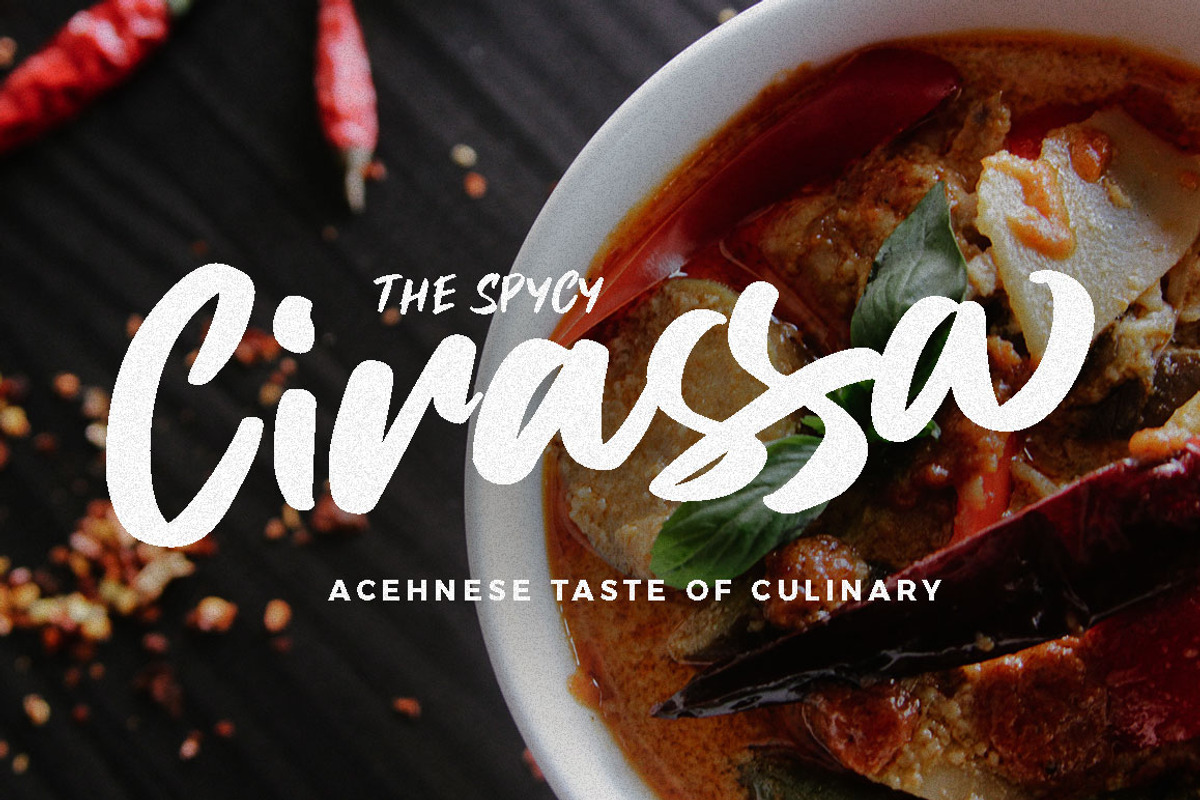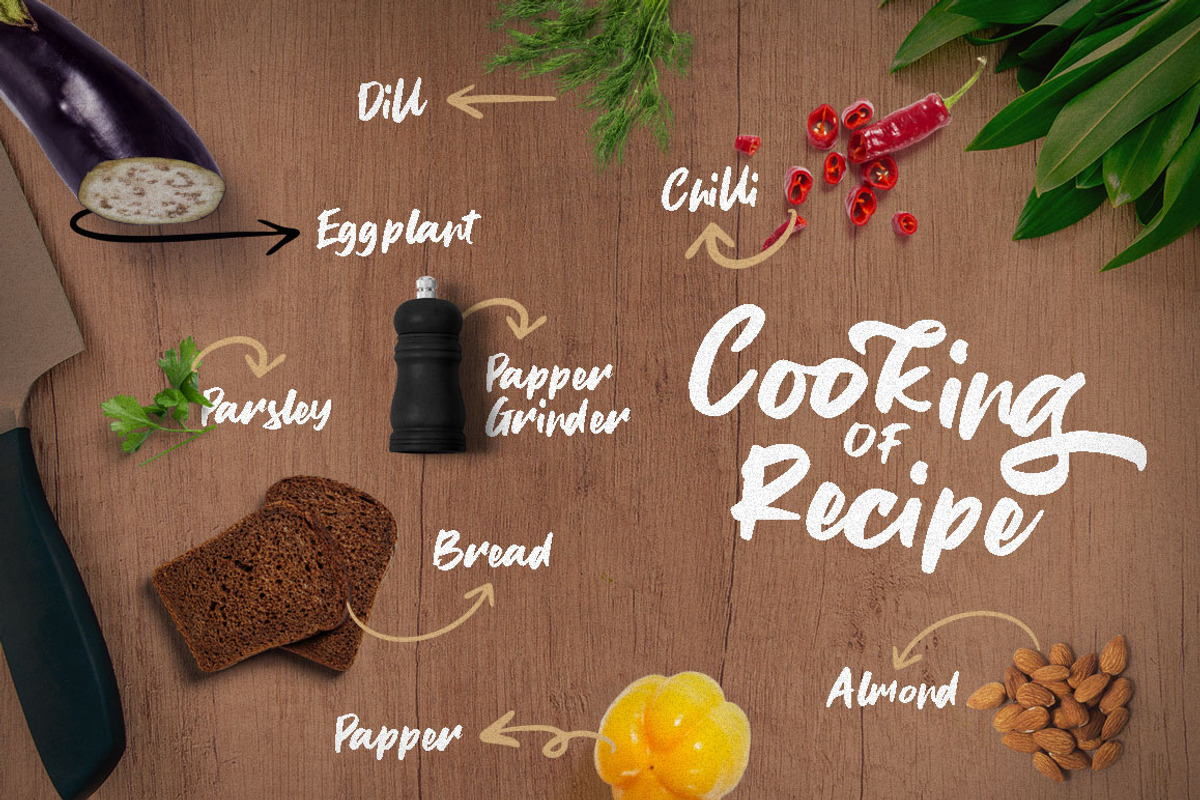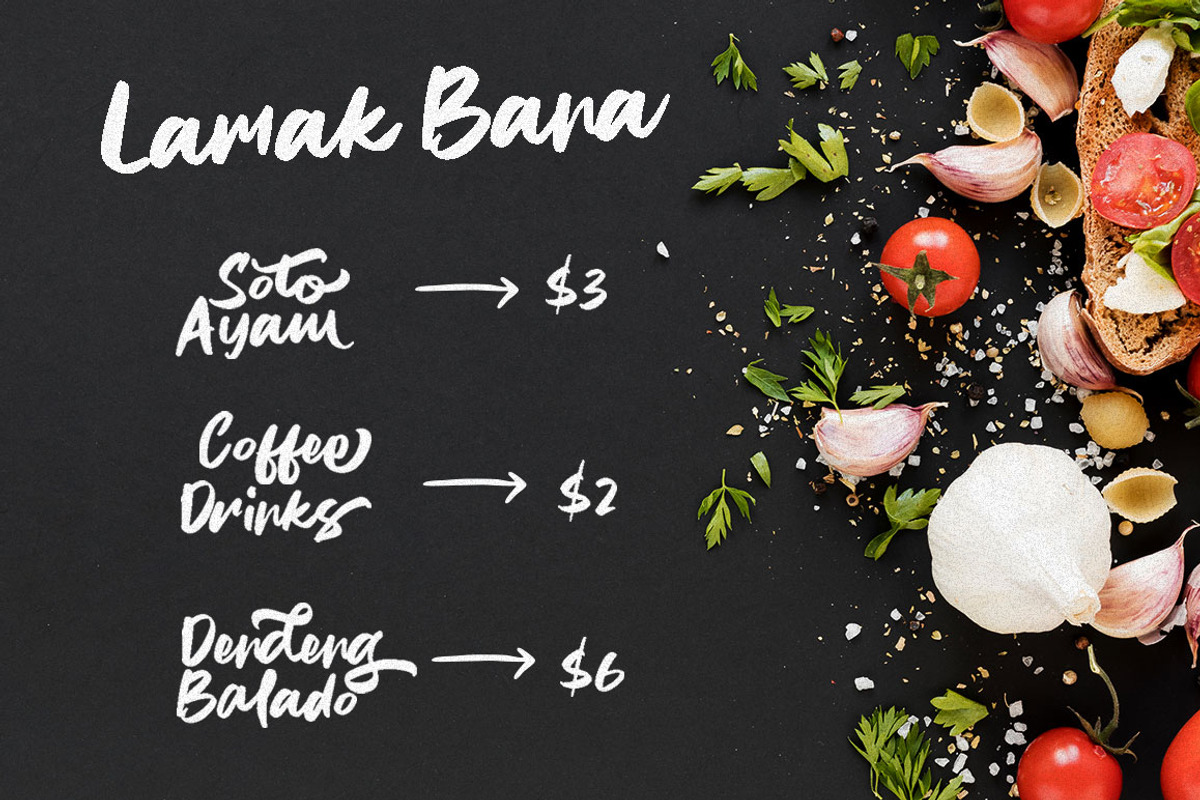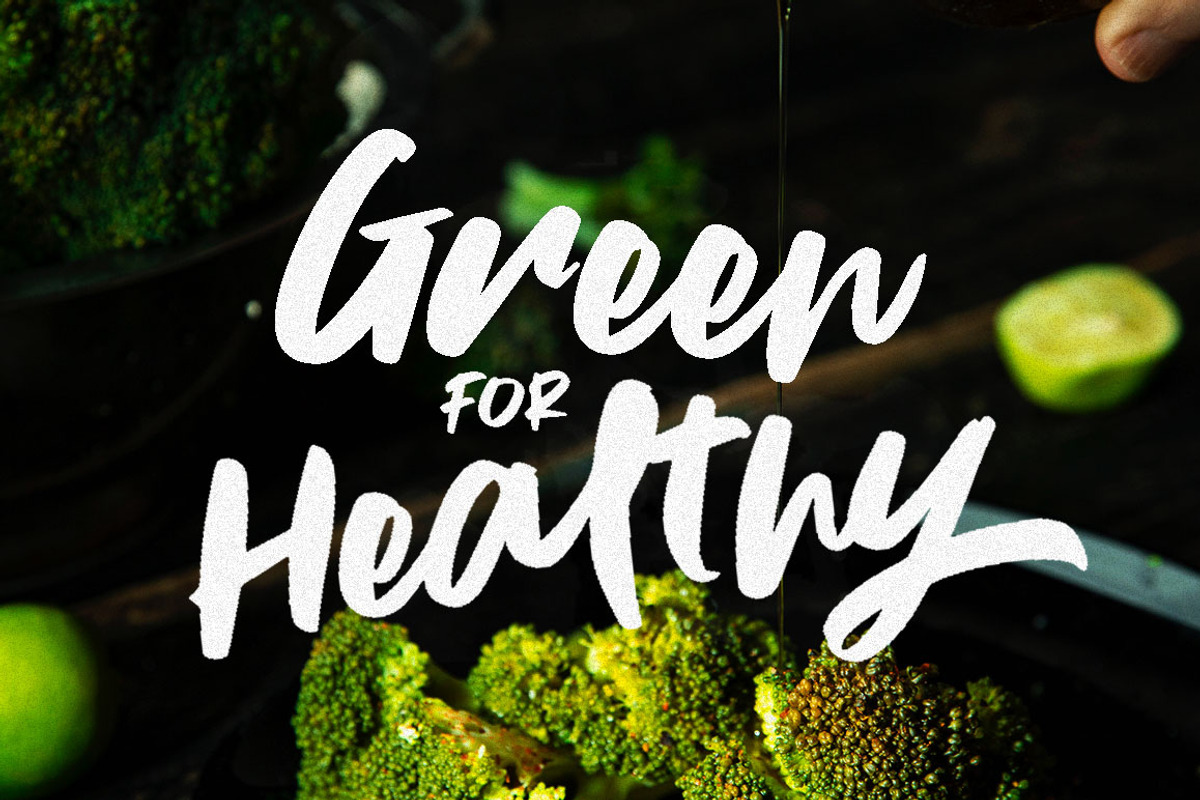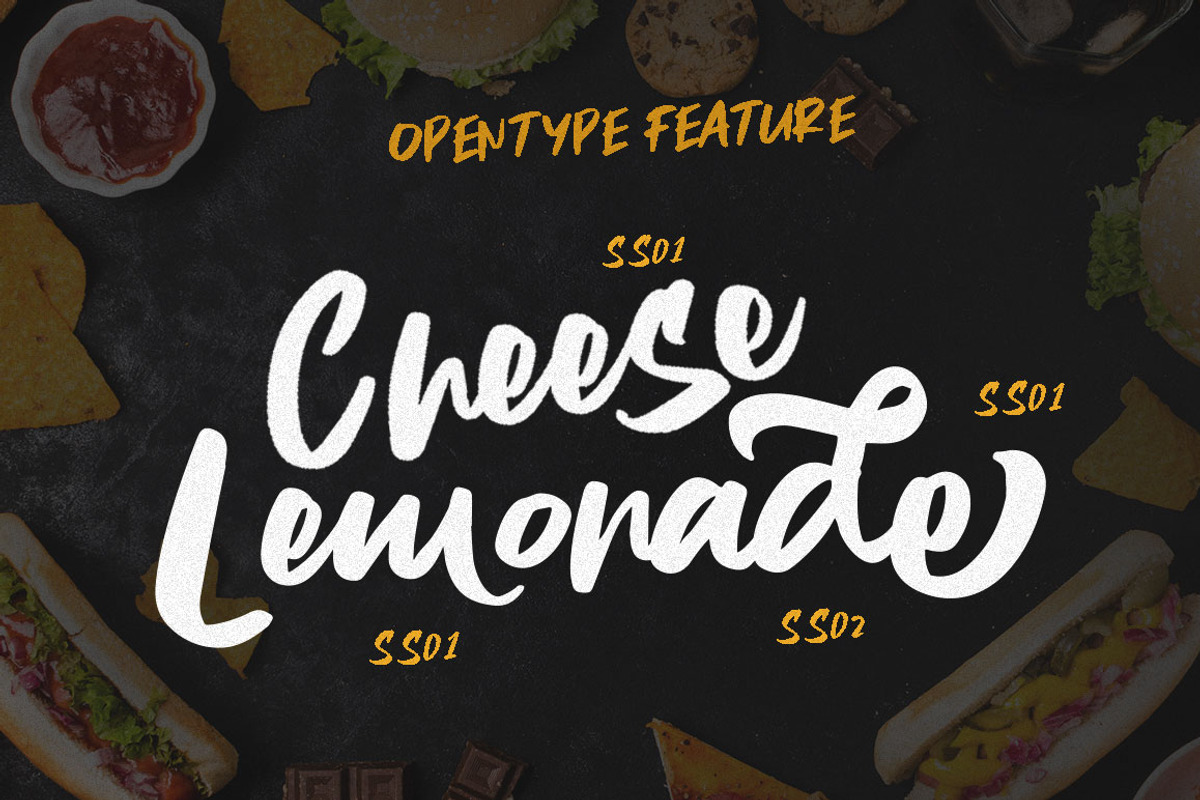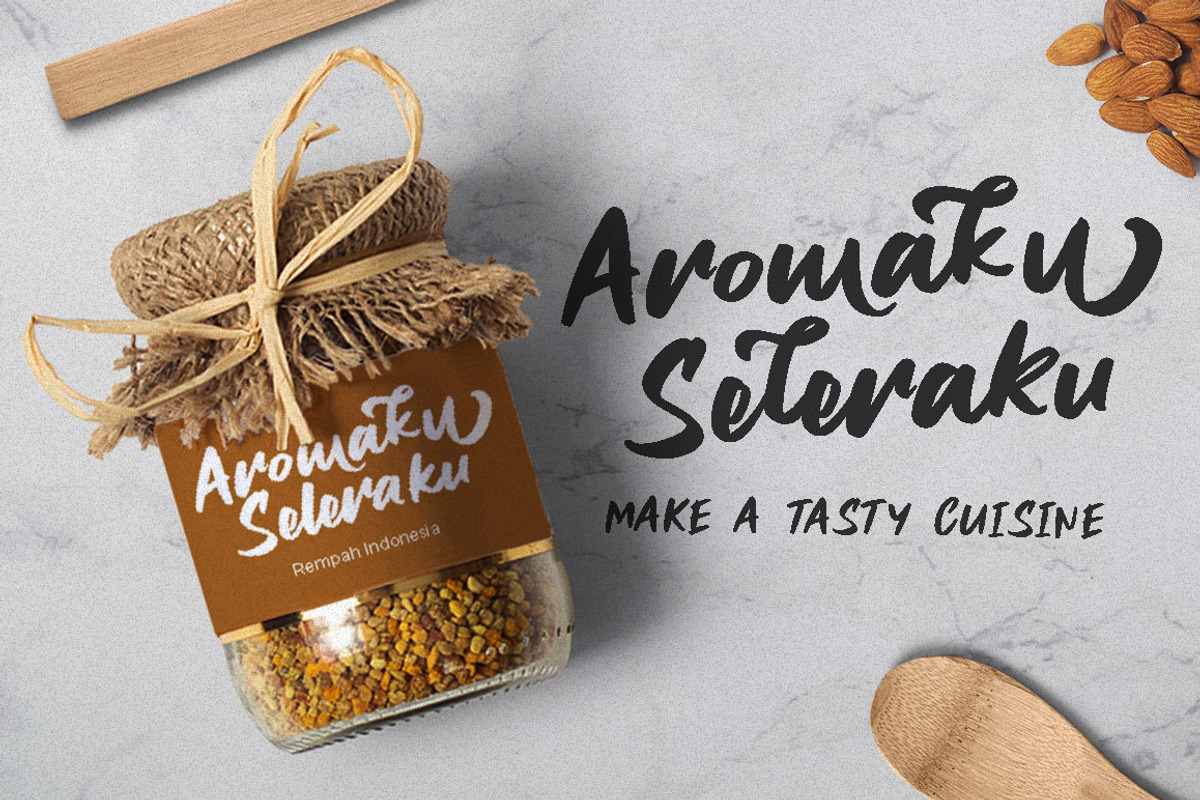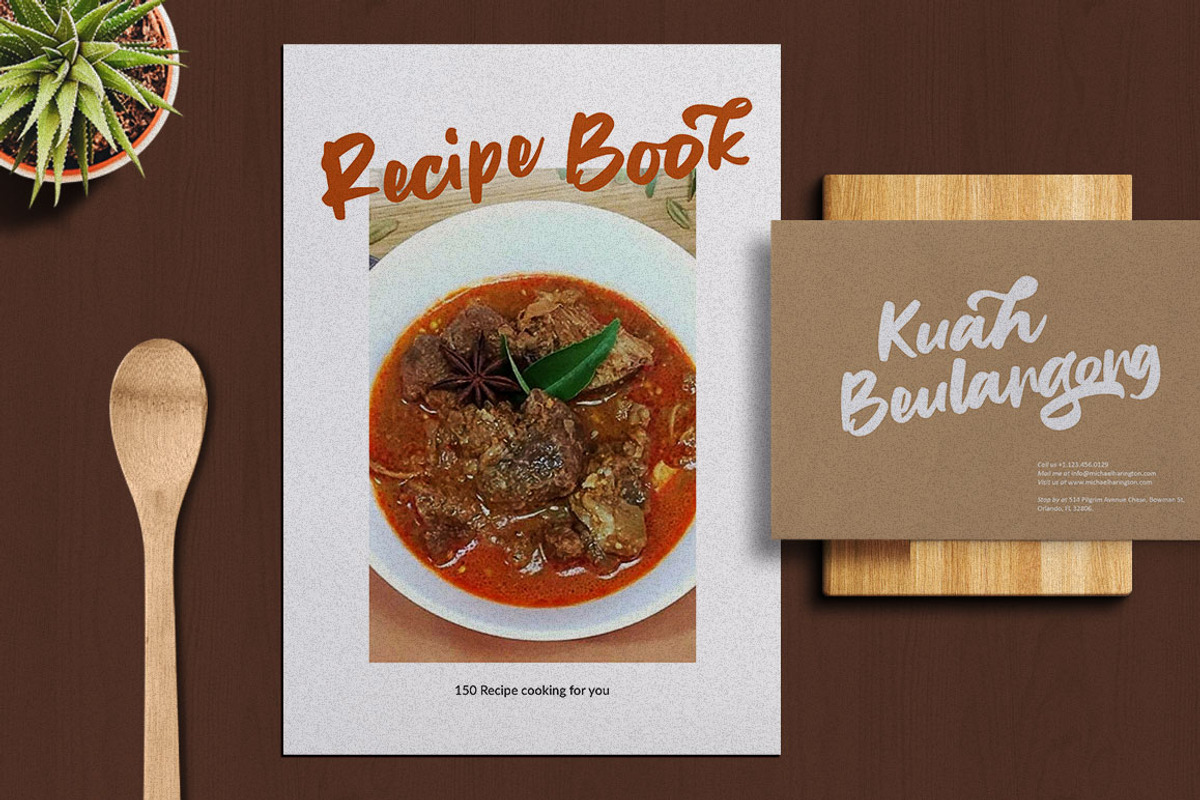
Cheese Lemonade - Food Display Font
Introducing Cheese Lemonade handwriting brush with some perfectly for Food Heading. Ready used with awesome character!
- Basic Latin A-Z and a-z
- Stylistic Set
Cheese Lemonade - Food Display Font by Dirtytemp Studio fits naturally into Branding, posters, packaging, typography.